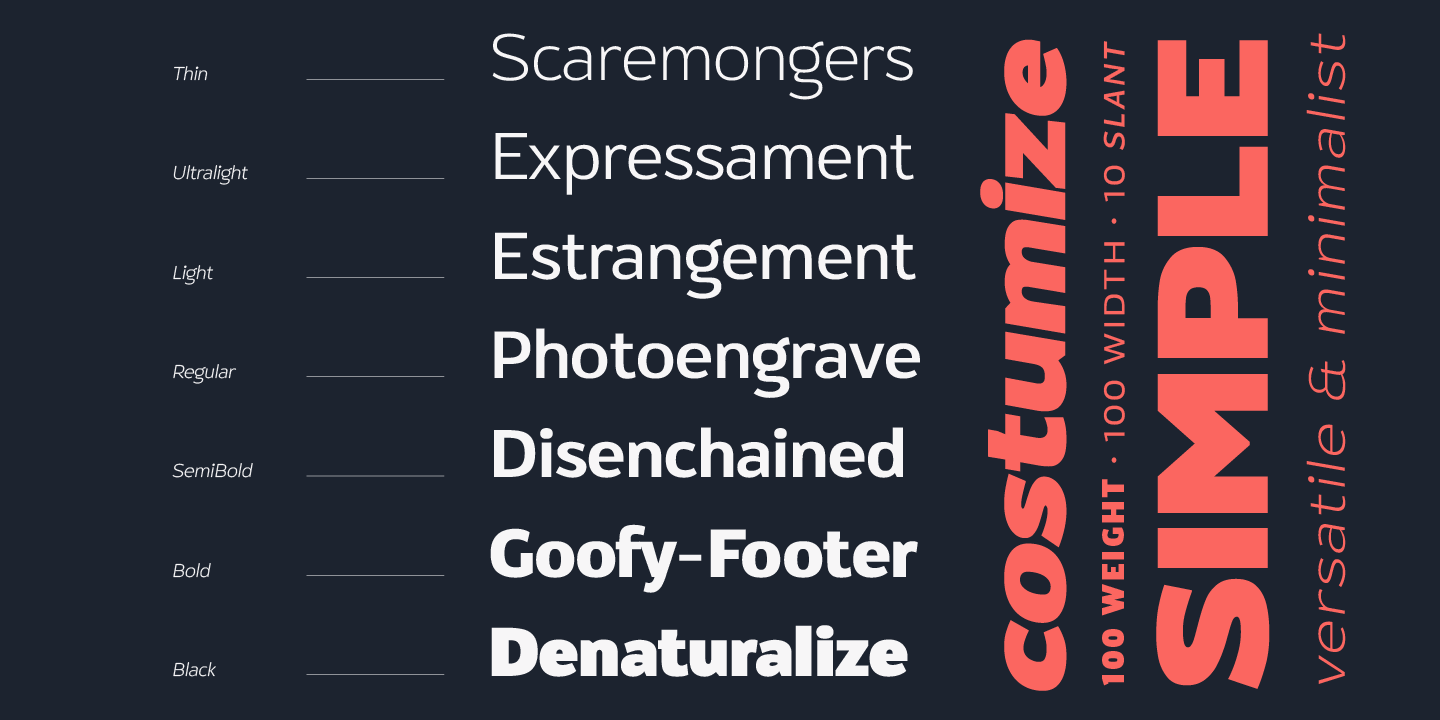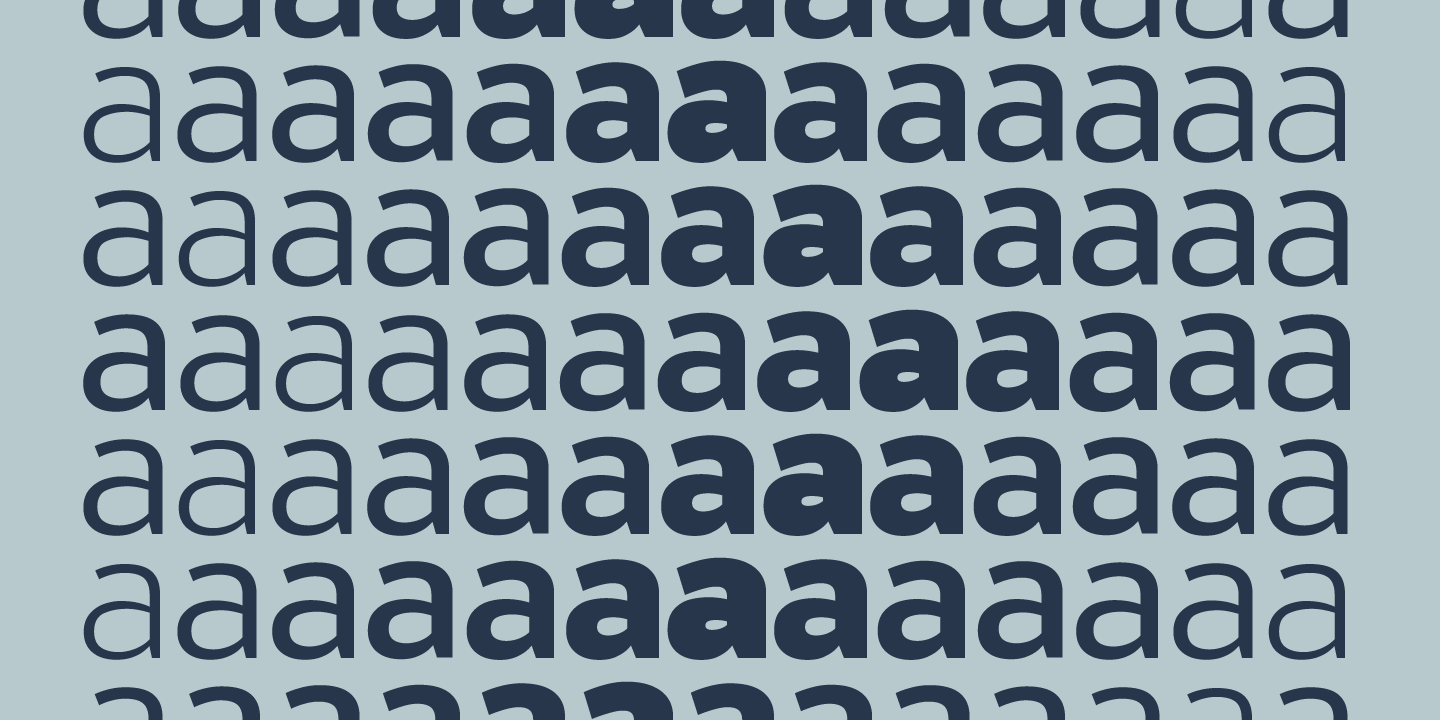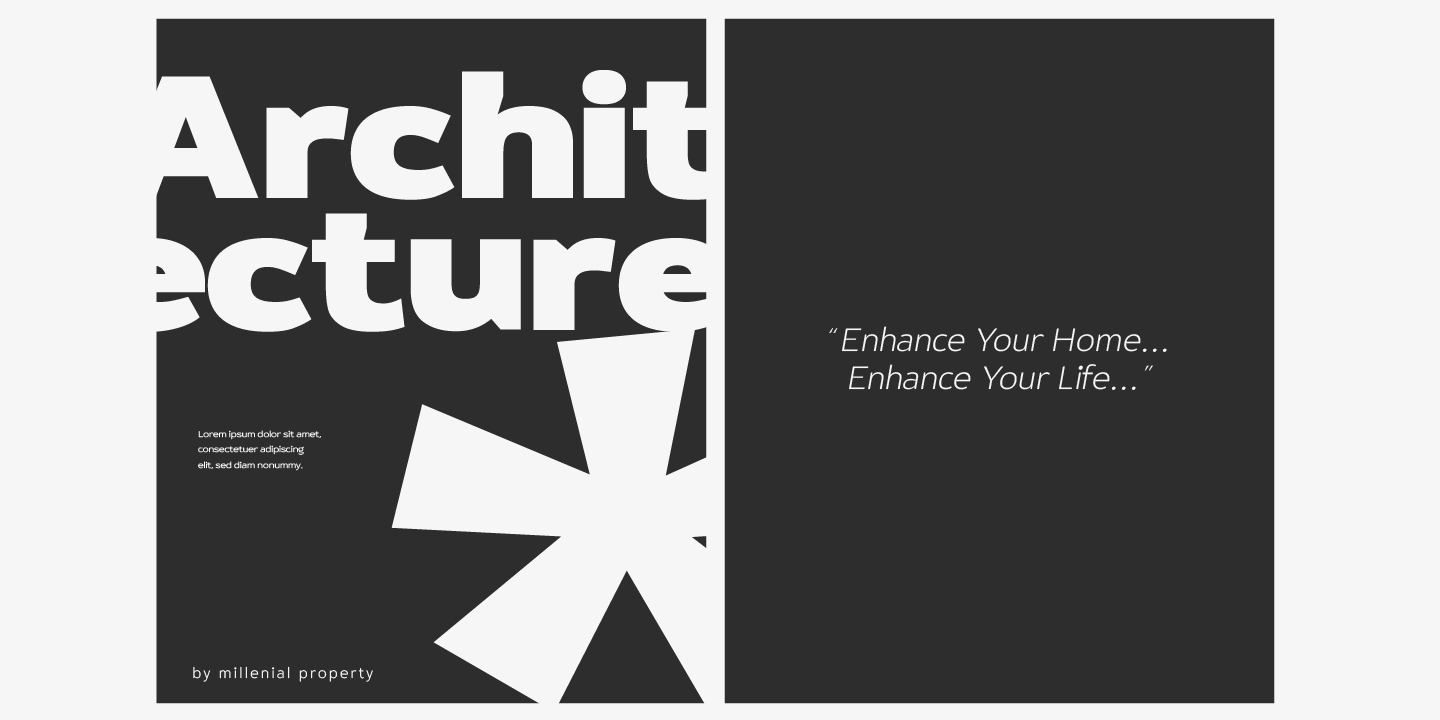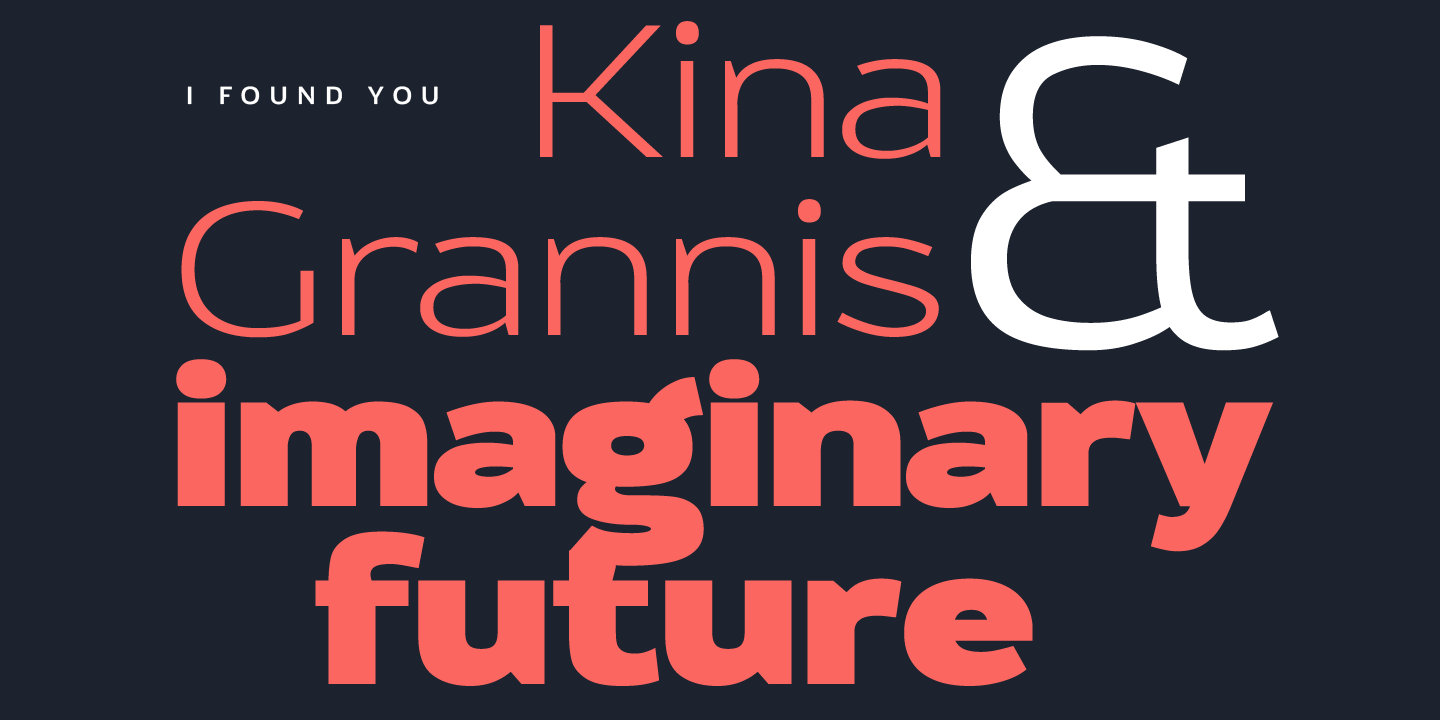
About Oliviar Sans
Oliviar Sans is a modern sans serif with Grotesque touch. Inspired by a Geometrical font and also Humanist Sans serif. Created with eight masters that export to the traditional OTF to 28 Styles. On the Applications that support variable fonts, such as…